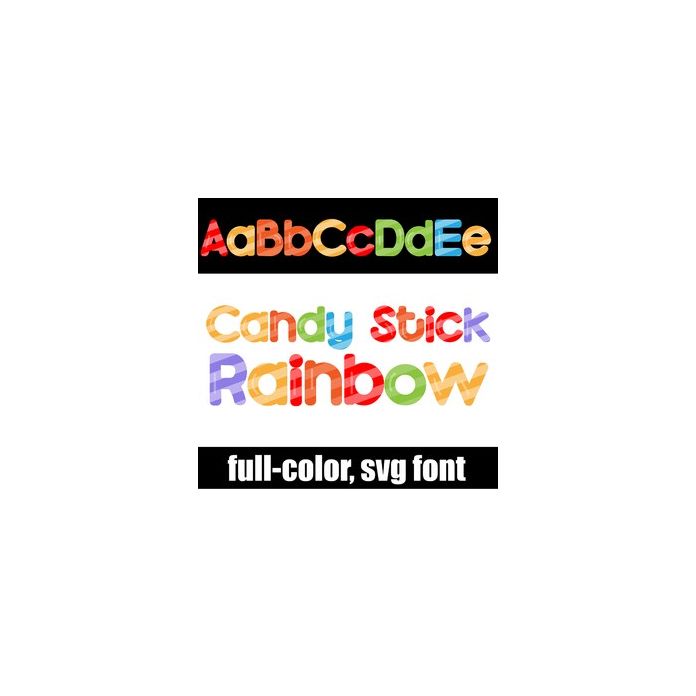
This full-color font features candy striped lettering in a rainbow of colors. There is an alt case w/ additional colors you can access through your system or Silhouette's glyph map.